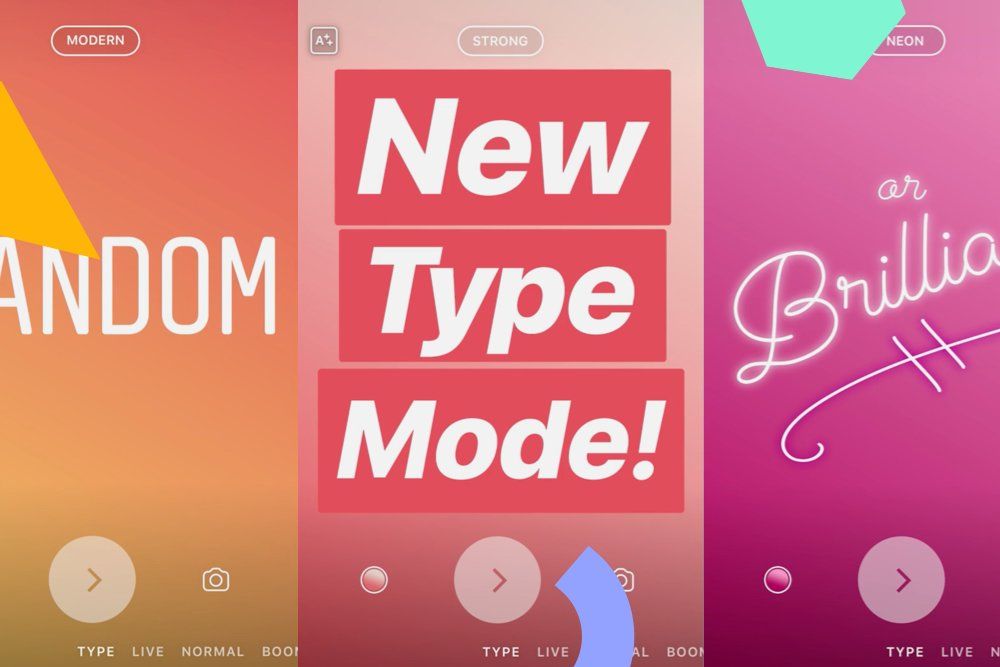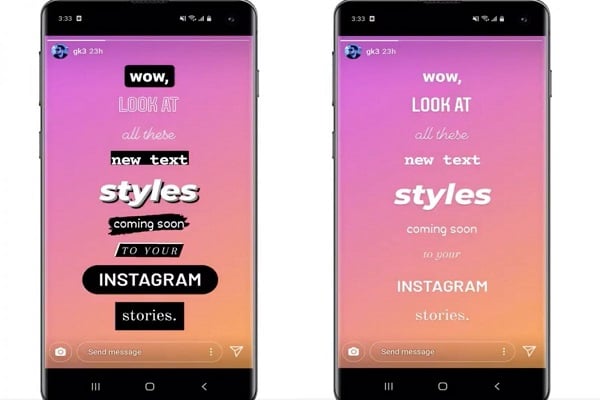
The new Instagram Stories fonts are finally here!
That’s right, there are 4 brand new Instagram Stories fonts to get creative with — as well as some fun new variations for the classics we already know and love.
We’re sharing all the details in this blog post, as well as our top tips to take your Instagram Stories designs to the next level:
Introducing the New Instagram Stories FontsEarlier this year, Instagram announced that some new stories fonts were heading our way:
U𝓟d𝓪𝓉𝔢:
ℕεฬ ғ𝐎n𝐭𝔰 in ⓢŤό𝓡เєs
ţ𝓇ㄚ 𝓣ℍ𝔢м n𝕆w https://t.co/XqrnTRiJRV
And now, they’re here!
The brand new fonts are now available in the Instagram Stories editor — alongside a revamped version of the original lineup.
To access the new fonts, all you need to do is open the Instagram Stories editor and tap the font icon in the top right-hand corner of the screen.
From here, you can scroll through to discover 9 different font options:
The first 5 fonts are tried-and-tested ones that should already be familiar: Classic, Modern, Neon, Typewriter, and Strong.
However, even some of these stalwart classics have undergone a revamp.
Stay tuned to discover a full rundown of all the new fonts, as well as our top tips on how to use them to level-up your Instagram Stories designs:
New Instagram Stories Fonts #1: Strong’s New Double-Layer Drop ShadowStrong is one of the most popular fonts in Instagram Stories, and it’s just received an exciting new upgrade.
It now comes with a trendy new double-layer drop shadow, rather than a solid background highlight.
This new drop shadow effect can be added by tapping the text highlight icon at the top of the text editor screen:
The drop shadow colors are automatically generated based on your selected text color, but you can easily switch the colors (from background to foreground and vice versa) by tapping the highlight button.
This upgraded highlight option makes this font super versatile — it’s perfect for layering over images, and you can manually select one of the accent colors by tapping the color wheel icon and using the color picker or swatch tool.
TIP: Can’t find your perfect shade in the swatch menu? Press and hold on one of the color options to open a full color palette.
New Instagram Stories Fonts #2: Modern’s New Outline VariantModern, the second font in the lineup, also has a fun new outline highlight:
This cute and playful twist can be really effective, especially when paired with the original block color font design.
TIP: The outline variant can be a bit tricky to read, so it’s worth scaling it up for clearer legibility in your stories’ design.
New Instagram Stories Fonts #3: A Kooky New Comic Sans Inspired FontNext up, there’s a kooky new font on the block, and it’s already polarizing the Instagram community.
Love it or hate it, this Comic Sans inspired font (sixth on the menu) is here to stay, complete with a playful paint-brush style highlight effect:
The irregularity of this font is perfect for brands looking to market themselves as casual, youthful, or playful, and could be great for those with a slightly silly or ironic streak.
TIP: Want to change the text color as well as the highlight color? Select the text and then pick a color from the swatch menu (see below).
New Instagram Stories Fonts #4: A Chic New Serif Font with an Editorial FeelThe next new font is perfect for brands looking to create an editorial look in their Instagram Stories content.
This italicized light serif font has a sophisticated touch and works well with and without its highlight option: an all-caps, magazine-inspired contrast.
By default, the highlight applies as black on white — a crisp and contemporary style that is a clear nod to the fashion editorial world.
However, you can adjust the colorways by tapping the color wheel tool.
This new font is both modern and refined, making it a great option for stylish, fashion-forward brands.
New Instagram Stories Fonts #5: A Simple Yet Versatile Sans-Serif OptionInstagram has also introduced a new, versatile sans-serif font into the mix.
Available in all-caps only, this clean and clear font is the perfect catch-all for brands on Instagram.
The highlight option is a block color that trims to the text length, making it great for legibility when applied over images or videos. The rounded highlight edges also soften up the application, creating a more casual impression.
TIP: Play around with extra spacings before applying a highlight to create a custom text design!
New Instagram Stories Fonts #6: A Crisp and Classic Serif for Standout HeadlinesThe final font in the new lineup is a classic serif option — and one that has huge potential for brands looking to elevate their Instagram Stories designs.
What kind of emotions can I evoke with type on Instagram?
You can change the font to any, for example, Gothic, fairy tale, Greek, cursive. Each of them evokes different feelings: nostalgia, interest, associations with something ancient and mythical, magical and secret. Use fonts depending on your goals or account theme.